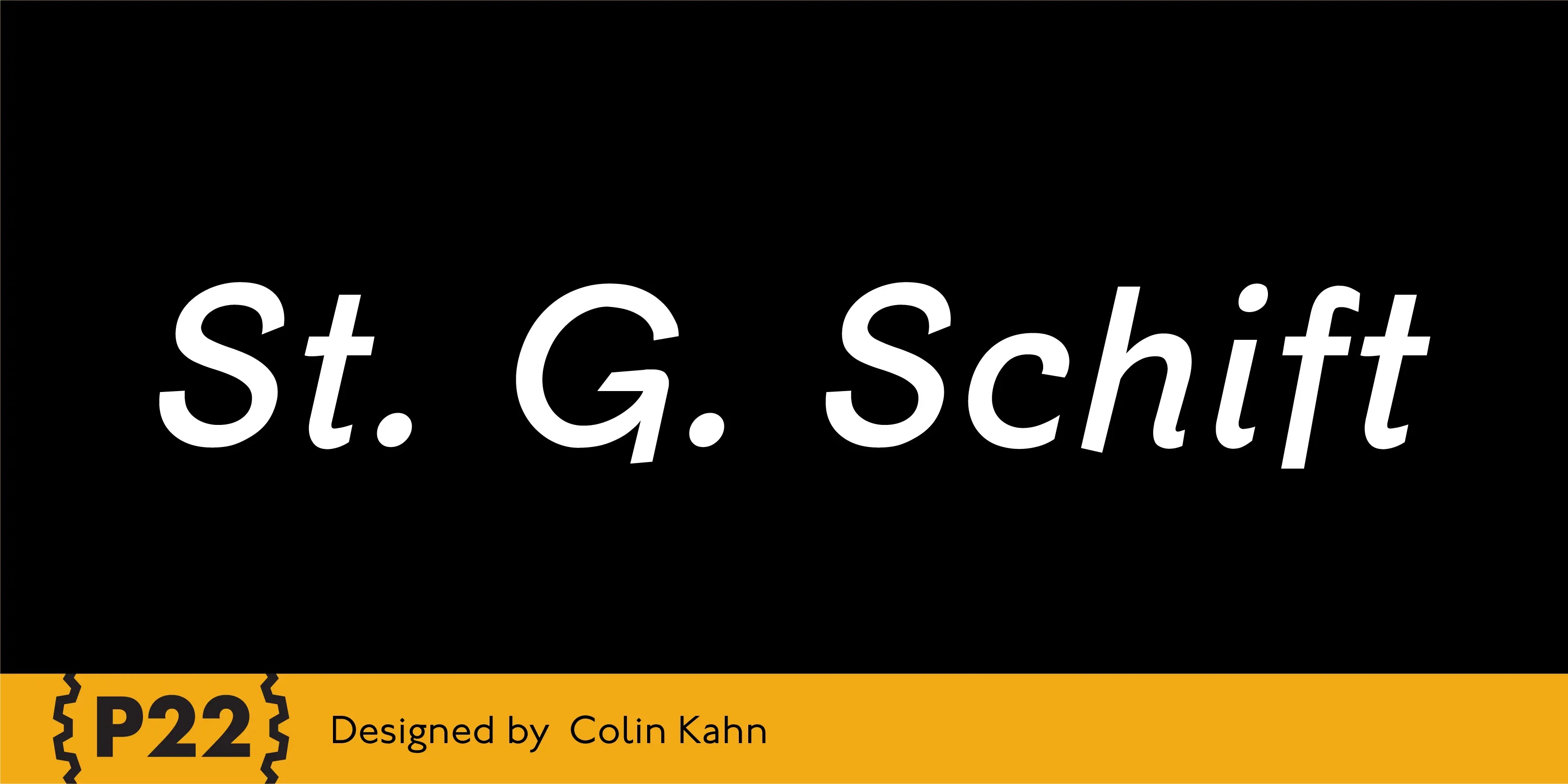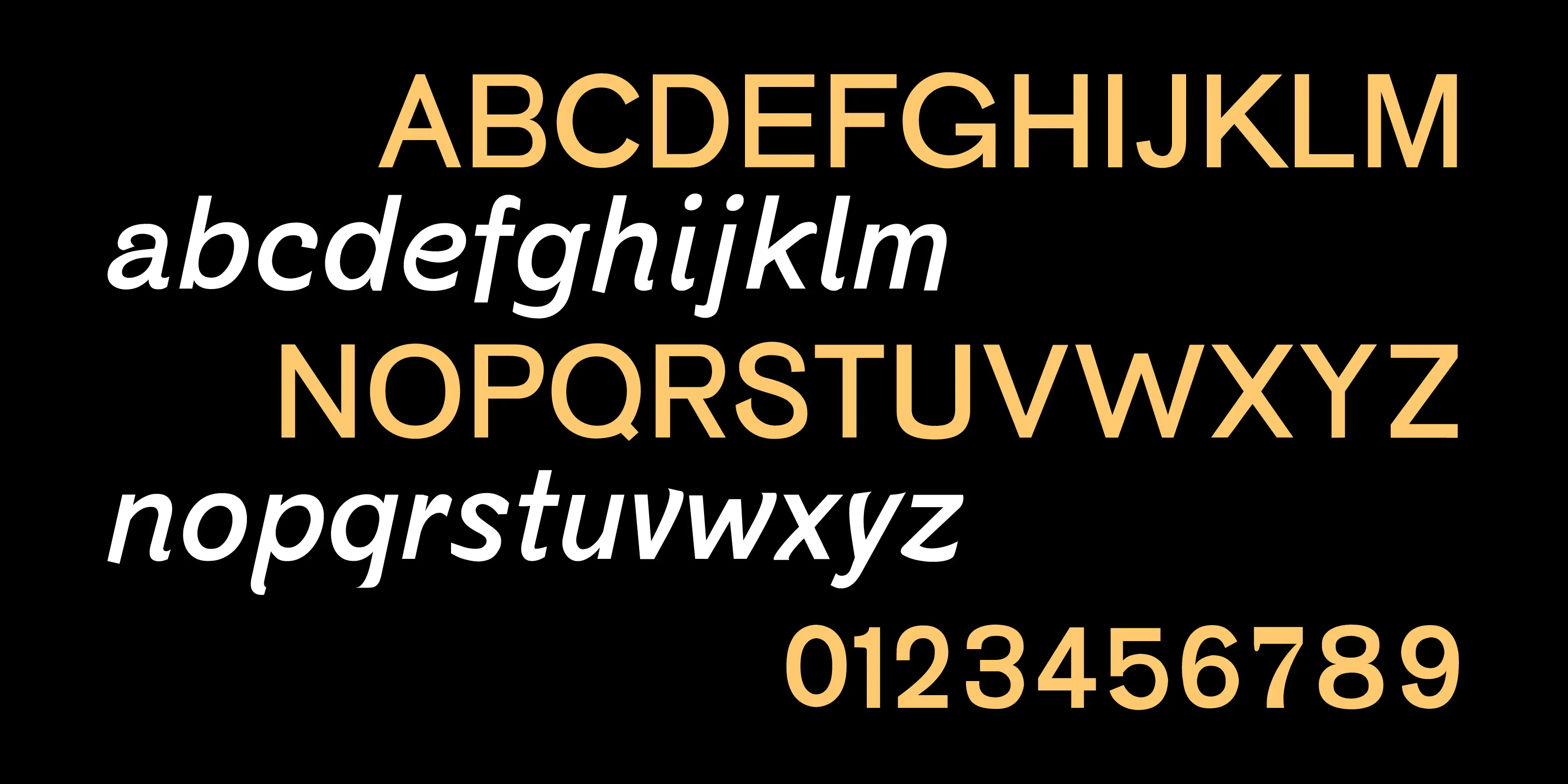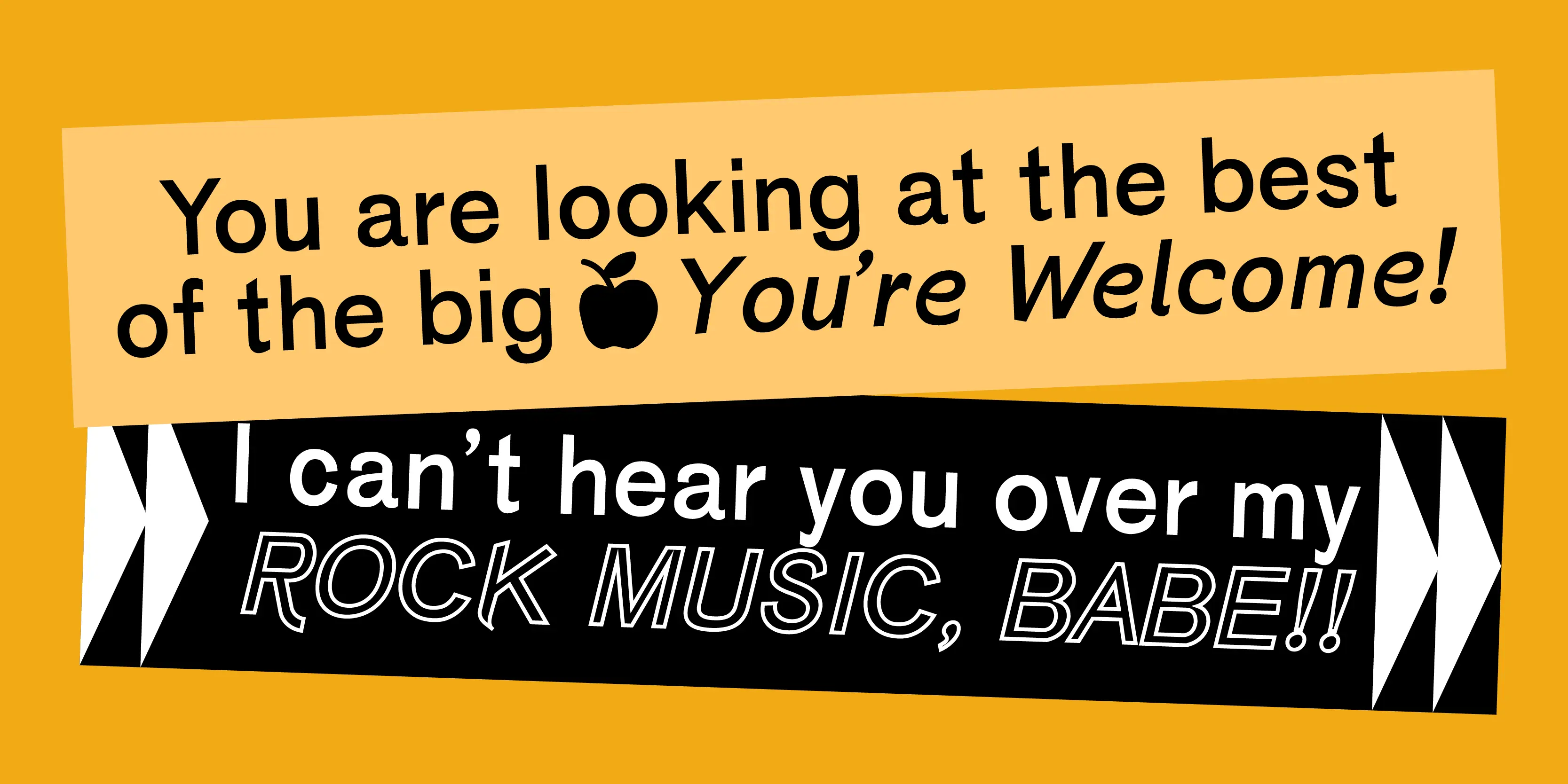
St. G. Schrift Font Family
St. G. Schrift
St. G. Schrift is a font based on the type designs of German poet Stefan George circa 1907. This sans-serif face featured a few variations found in books published by George in Berlin. One features many unusual letterforms, while Two is a more standard sans. The Italic version is a new design Colin Kahn.
- Common Ligatures
- Ornaments
- Small Capitals
- Small Capitals for Capitals
- Titling Capitals